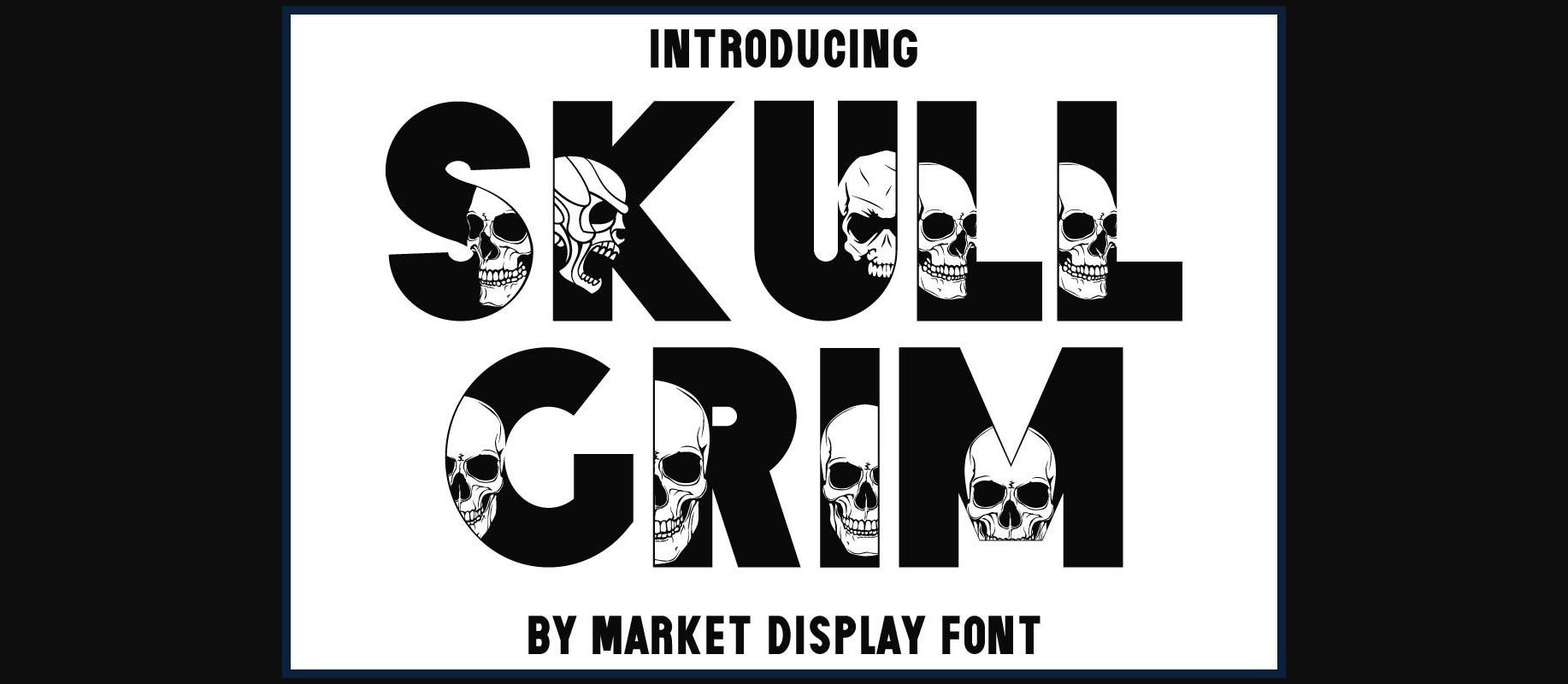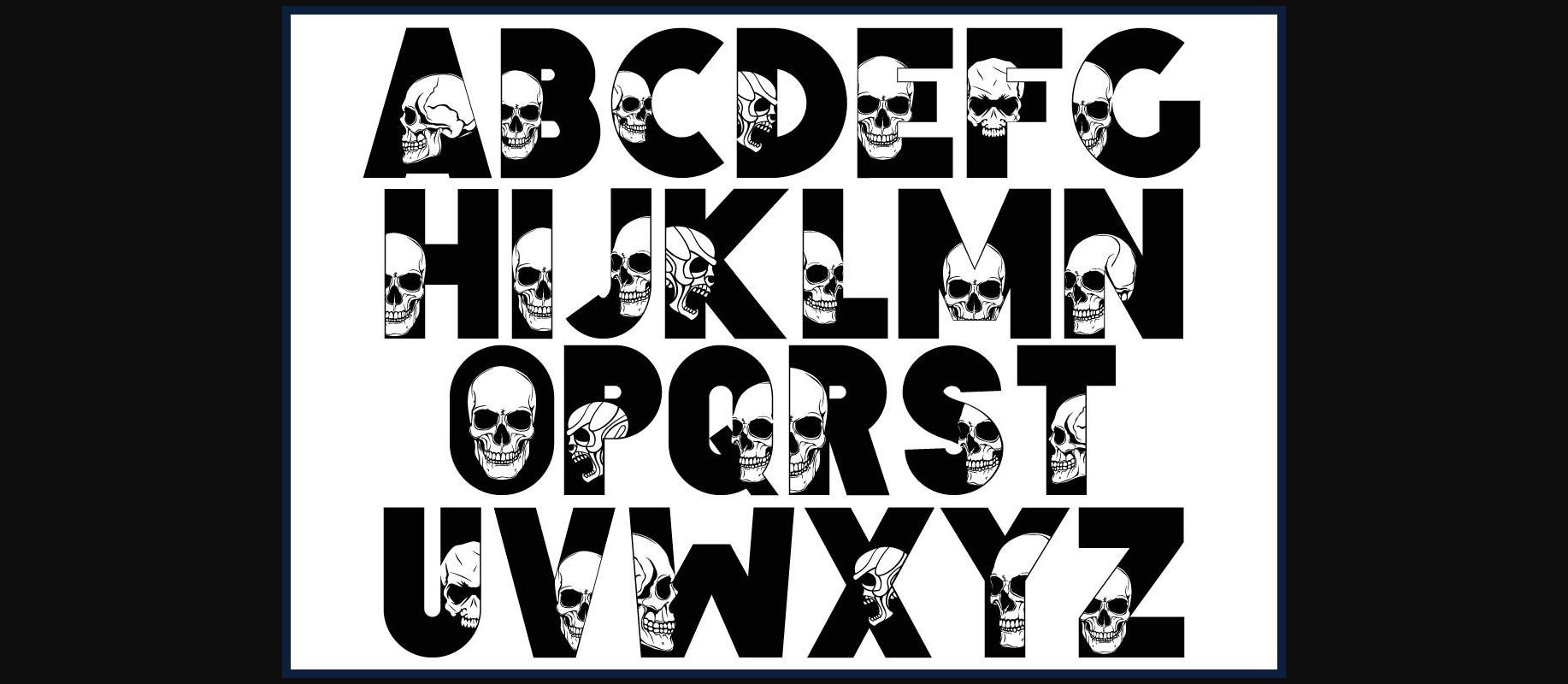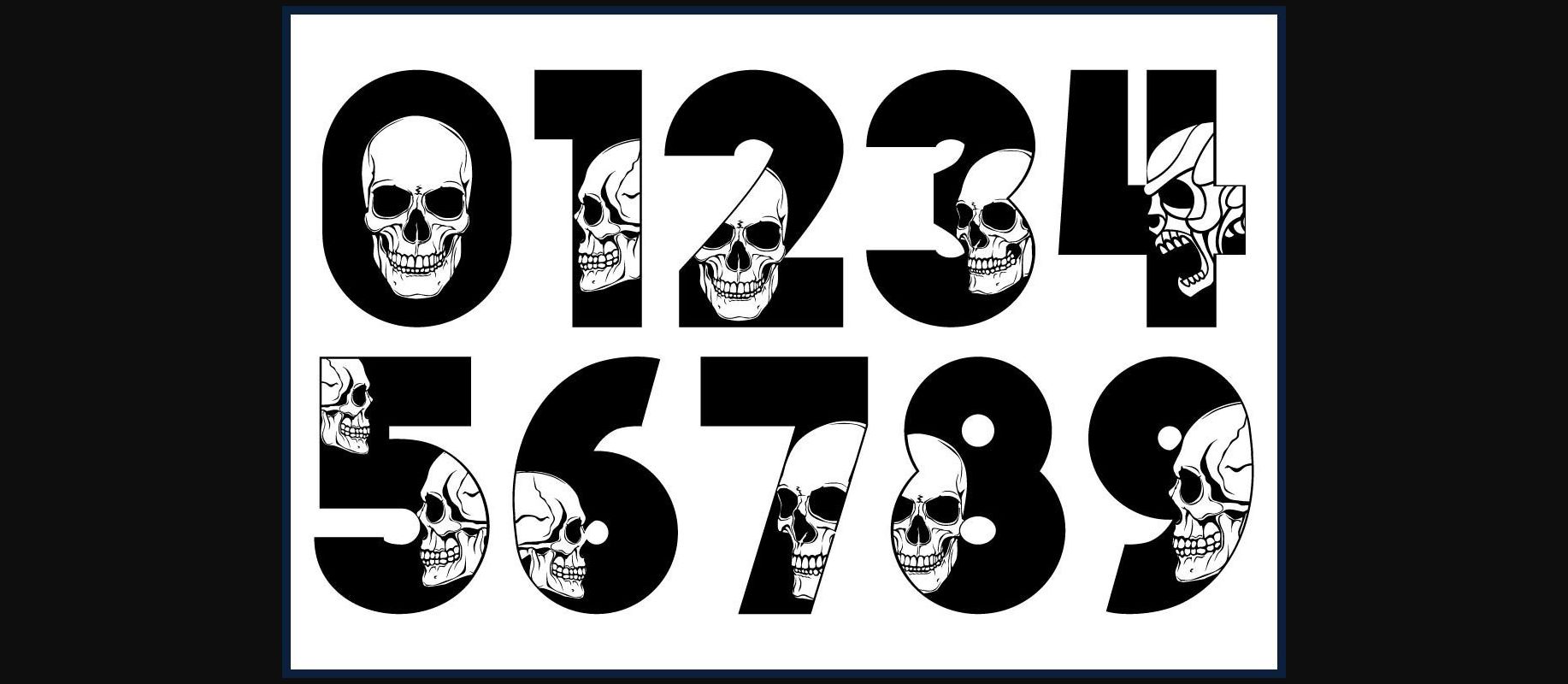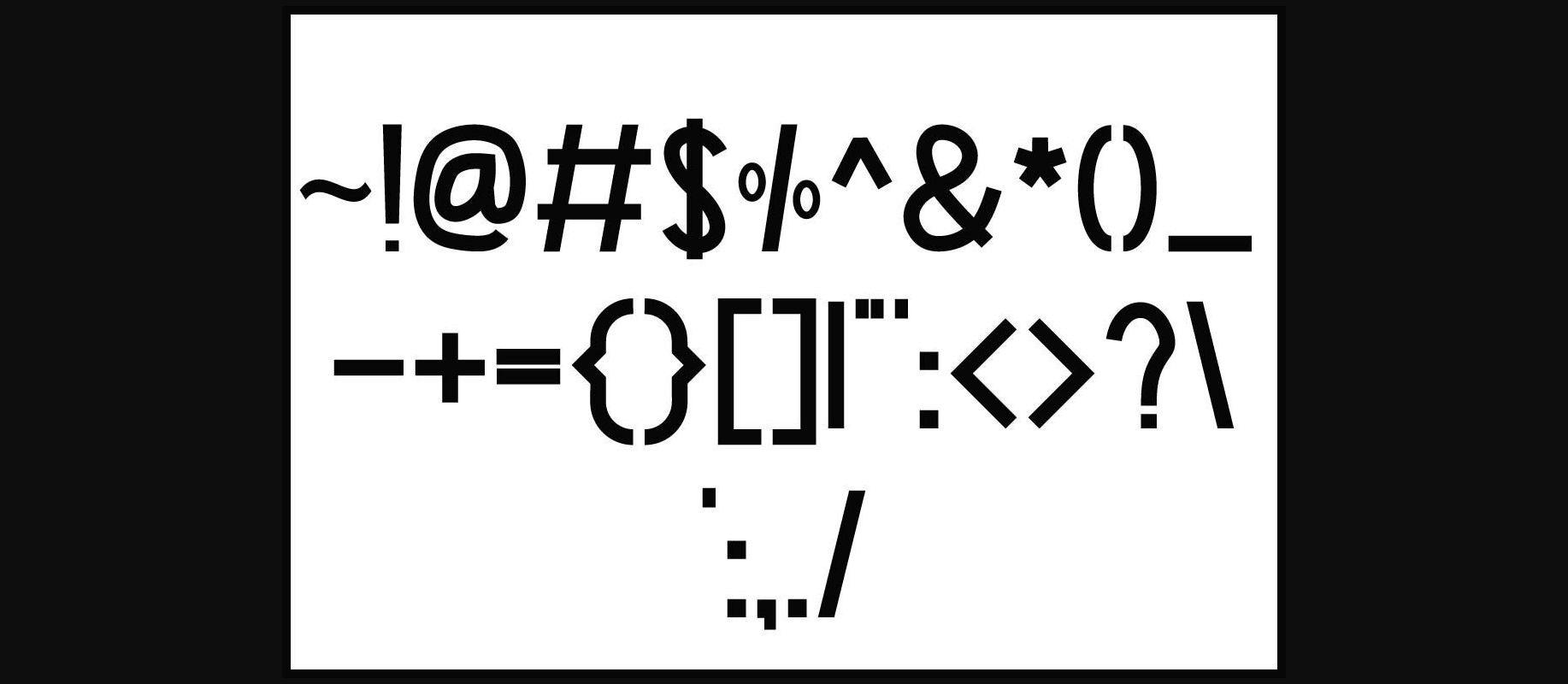
HomeDecorative FontsSkull Grim Font Decorative Fonts Skull Grim Font FacebookXPinterestWhatsApp 1 of 6 ... Skull Grim Font Poster 2... Skull Grim Font Poster 3... Skull Grim Font Poster 4... Skull Grim Font Poster 5... Skull Grim Font Poster 6... About Skull Grim Font Skull Grim is a “dangerous” decorative font. You can see creepy skull designs inside the character’s set. Use them for danger signs, warning decorations, Halloween cards, t-shirts, covers, posters, etc. DOWNLOAD NOW People also explored Antiquity Blick Font Children Love Note Font Balmore Font Spider Web Monogram Font Sunnice Font New York Font Heart Cupid Font Palmilla 2.0 Font Venetian Old Signboard Mockup 290 0 TagsSkull Grim Font Previous articleRistea Flower FontNext articleGhost Day Two Font LEAVE A REPLY Cancel reply Comment: Please enter your comment! Name:* Please enter your name here Email:* You have entered an incorrect email address! Please enter your email address here Website: Save my name, email, and website in this browser for the next time I comment. Personal Use Free Pumpkins Candles Personal Use Free Read more about this font Dream Orphans Personal Use Free Read more about this font Bashira Personal Use Free Read more about this font December Christmas Personal Use Free Read more about this font BLOG 5 Fonts That Will Dominate Design Trends in 2026 5 Fonts for 2026 That Will Dominate Design Trends Typography plays a critical role in visual communication, and as we look ahead to 2026, it’s... Best Fonts for YouTube Videos: Make Your Thumbnails Stand Out Top 7 Google Fonts Alternatives for Faster and Privacy-Friendly Web Design (2025) Best Fonts for T-Shirt Design – Top 2025 Picks